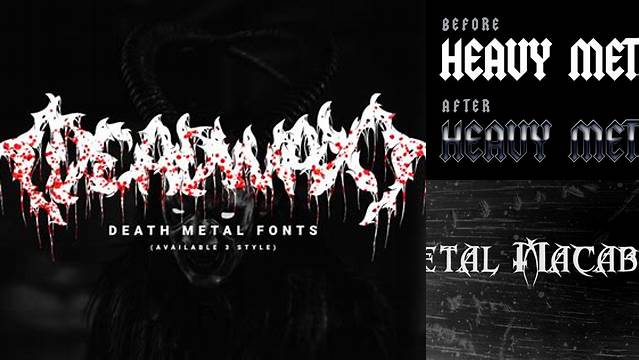
Free Heavy Metal Fonts For Commercial Use
Hey guys! Are you looking to add some serious metal vibes to your designs? You've come to the right place! Finding the perfect heavy metal font can be a game-changer for your projects, whether it's a band logo, album art, or even a killer poster. And the best part? There are tons of awesome options out there that you can use for free, even for commercial projects. Let's dive into the world of heavy metal fonts and explore how you can get your hands on the perfect one without breaking the bank. We'll cover everything from where to find them to how to use them effectively, ensuring your designs scream metal! So, grab your air guitar and let's get started on this headbanging adventure!
1. Understanding Heavy Metal Font Characteristics
Alright, before we jump into the font frenzy, let's talk about what makes a font truly heavy metal. These fonts are all about attitude, aggression, and a touch of the dark side. Think sharp edges, bold strokes, and sometimes even a hint of the gothic or medieval. A great heavy metal font needs to be instantly recognizable and pack a punch. Common characteristics include distorted letterforms, jagged lines, and a generally menacing appearance. Many draw inspiration from classic metal band logos, which often feature custom lettering that's as iconic as the music itself. Understanding these characteristics will help you narrow down your search and identify fonts that truly capture the heavy metal spirit. Whether you're designing a logo, a poster, or album artwork, choosing the right font is crucial to convey the desired mood and style. Let's make sure you know what to look for!
3. Key Features to Look for in a Heavy Metal Font
Now, let's get specific about what to look for in a heavy metal font. We're talking about features that make a font scream metal! Think about characteristics like bold weight, sharp serifs or lack thereof, and overall readability. A heavy metal font should be impactful and grab attention, but it also needs to be legible, especially if you're using it for body text. Consider the spacing between letters (kerning) and the height of the letters (x-height) as well. A good heavy metal font will balance the aggressive aesthetic with functional design. Look for fonts that offer variations in weight and style, such as bold, italic, and condensed versions, to give you more flexibility in your designs. Also, check if the font includes a full character set, including numerals and punctuation, to ensure it meets all your needs. Choosing the right features will elevate your designs and make them truly metal!
4. Distorted and Jagged Fonts for a Metal Look
One of the hallmarks of a heavy metal font is its often distorted and jagged appearance. This style perfectly captures the raw energy and rebellious spirit of the genre. Think about fonts that look like they've been through a sonic explosion β rough edges, uneven lines, and a generally chaotic vibe. These fonts are perfect for creating logos, album art, and posters that need to make a strong statement. When using distorted fonts, it's important to balance the visual intensity with readability. You want the font to be eye-catching, but not so chaotic that it's difficult to read. Consider using these fonts for headlines and titles, and pair them with a cleaner, more legible font for body text. Experiment with different distortions and jagged effects to find the perfect level of aggression for your design. Remember, a well-chosen distorted font can instantly transform your project into a heavy metal masterpiece!
5. Bold and Aggressive Font Styles
If you're aiming for a heavy metal vibe, bold and aggressive font styles are your best friends. These fonts command attention and exude power, making them perfect for designs that need to make a statement. Think thick strokes, strong serifs (or lack thereof), and an overall sense of intensity. A bold heavy metal font can instantly add a sense of drama and energy to your project, whether it's a band logo, a flyer for a gig, or album artwork. When choosing a bold font, consider how it will interact with other elements in your design. You want it to stand out, but not overpower the rest of the composition. Experiment with different weights and styles to find the perfect balance. Remember, a bold and aggressive font is a powerful tool for conveying the heavy metal aesthetic. Let's use that power wisely!
6. Gothic and Medieval Inspired Heavy Metal Fonts
Gothic and medieval influences are surprisingly common in heavy metal aesthetics, and this extends to fonts as well. These fonts often feature elaborate serifs, ornate details, and a generally dark and mysterious vibe. Think blackletter fonts, Fraktur styles, and other typefaces that evoke a sense of history and drama. A gothic or medieval-inspired heavy metal font can add a touch of epic grandeur to your designs, making them perfect for fantasy-themed projects, album art, or even band logos that want to convey a sense of ancient power. When using these fonts, it's important to consider readability. Some gothic fonts can be quite ornate, so use them sparingly and pair them with simpler fonts for body text. Experiment with different styles and weights to find the perfect balance between visual impact and legibility. Remember, a well-chosen gothic font can transport your audience to another world, adding a touch of timeless mystique to your heavy metal designs.
7. Fonts with Sharp Edges and Points
Sharp edges and points are a key element in many heavy metal fonts, adding a sense of danger and aggression. Think about letterforms that look like they could cut you β sharp serifs, pointed terminals, and an overall angular appearance. These fonts are perfect for designs that need to convey a sense of intensity and edge. They work especially well for logos, posters, and album art that want to make a bold statement. When using fonts with sharp edges, it's important to consider the overall balance of your design. You don't want the font to look too chaotic or overwhelming. Pair it with other elements that have a similar sharp aesthetic, or contrast it with smoother, more rounded shapes to create visual interest. Experiment with different weights and sizes to find the perfect balance between aggression and readability. Remember, a font with sharp edges can add a serious dose of heavy metal attitude to your project.
8. Slab Serif Fonts for a Heavy Look
Slab serif fonts, with their thick, blocky serifs, can be a fantastic choice for a heavy metal aesthetic. These fonts have a strong, commanding presence that exudes power and confidence. They're perfect for designs that need to make a statement, such as logos, posters, and album art. A slab serif heavy metal font can give your project a vintage, industrial, or even Western-inspired feel, depending on the specific typeface you choose. When using slab serifs, it's important to consider the overall balance of your design. These fonts can be quite bold, so you'll want to pair them with other elements that can hold their own. Experiment with different weights and sizes to find the perfect balance between impact and readability. Remember, a well-chosen slab serif font can add a serious dose of heavy metal grit to your project.
9. Fonts with a Distressed or Grunge Texture
For a truly raw and gritty heavy metal look, consider using fonts with a distressed or grunge texture. These fonts look like they've been through the wringer β faded ink, rough edges, and an overall worn appearance. They're perfect for designs that need to convey a sense of authenticity and rebellion. A distressed heavy metal font can add a touch of vintage charm to your project, making it look like it's been around the block a few times. When using distressed fonts, it's important to consider readability. The texture can sometimes make the letters difficult to decipher, so use these fonts sparingly and pair them with cleaner fonts for body text. Experiment with different levels of distress to find the perfect balance between texture and legibility. Remember, a well-chosen distressed font can add a serious dose of heavy metal attitude to your project.
10. Using Heavy Metal Fonts for Logos
Your logo is the face of your brand, and if your brand is heavy metal, you need a font that screams it! Using the right heavy metal font for your logo can instantly convey the attitude and energy of your music or brand. Think about fonts that are bold, aggressive, and instantly recognizable. Distorted fonts, sharp-edged fonts, and even gothic-inspired fonts can work wonders for a heavy metal logo. When designing a logo, it's important to consider the overall legibility of the font. Your logo needs to be readable at various sizes, from business cards to billboards. Experiment with different fonts and variations to find the perfect balance between style and readability. Also, think about the overall aesthetic of your brand. Does your music have a more raw and gritty sound, or is it more polished and epic? Choose a font that reflects your brand's unique personality. Remember, your logo is your first impression, so make it a heavy metal one!
11. Applying Heavy Metal Fonts to Album Artwork
Album artwork is a crucial part of the heavy metal experience. It's the visual representation of your music, and the font you choose plays a significant role in setting the mood. A killer heavy metal font can instantly grab the viewer's attention and make them want to listen. Think about fonts that are bold, dramatic, and visually striking. Distorted fonts, gothic fonts, and fonts with sharp edges are all great choices for album artwork. When designing album artwork, consider the overall theme and message of your music. Choose a font that complements the music and enhances the visual impact of the artwork. Experiment with different font sizes, colors, and effects to create a truly unique and memorable design. Remember, your album artwork is a visual extension of your music, so make it heavy metal to the core!
12. Creating Posters and Flyers with Metal Fonts
Posters and flyers are essential tools for promoting heavy metal gigs and events. And guess what? The right font can make all the difference! A heavy metal font that grabs attention and conveys the energy of the music is key. Think about fonts that are bold, aggressive, and easy to read from a distance. Distorted fonts, slab serif fonts, and fonts with sharp edges are all great choices for posters and flyers. When designing posters and flyers, consider the overall layout and composition. You want the font to be the focal point, but it also needs to work harmoniously with the other elements in your design. Experiment with different colors, sizes, and placements to create a visually striking and informative poster. Remember, your poster is your invitation to the party, so make it heavy metal and irresistible!
13. Combining Different Heavy Metal Fonts
Sometimes, one heavy metal font just isn't enough! Combining different fonts can create a dynamic and visually interesting design. However, it's important to do it carefully to avoid a cluttered or chaotic look. When combining fonts, choose fonts that complement each other but also have enough contrast to create visual hierarchy. For example, you might pair a bold, distorted font for the headline with a cleaner, more legible font for the body text. Or, you could combine a gothic font with a slab serif font to create a unique and striking contrast. Experiment with different font combinations and see what works best for your design. Don't be afraid to break the rules, but always prioritize readability and visual harmony. Remember, combining fonts is an art, and when done well, it can take your heavy metal designs to the next level!
14. Ensuring Legibility with Heavy Metal Fonts
Okay, guys, let's talk readability! While heavy metal fonts are all about attitude and aggression, it's crucial to ensure your designs are still legible. A font that's too distorted or ornate can be difficult to read, especially at smaller sizes. When choosing a heavy metal font, consider its overall legibility. Can you easily read the letters and words, even from a distance? If not, you might need to choose a different font or adjust the size and spacing. Pay attention to the kerning (the space between letters) and the x-height (the height of the lowercase letters). These factors can significantly impact readability. Also, consider the context in which the font will be used. A font that looks great on a poster might not work well on a business card. Remember, the goal is to grab attention and convey your message effectively, so prioritize legibility without sacrificing the heavy metal vibe!
15. Using Color to Enhance Heavy Metal Font Aesthetics
Color can be a powerful tool for enhancing the aesthetics of your heavy metal fonts. Think about colors that evoke a sense of darkness, intensity, and energy. Black, red, and silver are classic heavy metal colors, but don't be afraid to experiment with other options as well. A bold color palette can make your fonts pop and add to the overall visual impact of your design. When using color, consider the contrast between the font and the background. You want the font to stand out and be easily readable. Also, think about the overall mood and message you want to convey. Darker colors can create a sense of mystery and aggression, while brighter colors can add a touch of energy and excitement. Experiment with different color combinations and see what works best for your project. Remember, color is your friend, so use it to enhance the heavy metal vibe of your fonts!
16. Adding Effects and Styles to Metal Fonts
Want to take your heavy metal fonts to the next level? Consider adding effects and styles to make them even more visually striking. Think about techniques like outlining, shadowing, and embossing. These effects can add depth and dimension to your fonts, making them pop off the page. You can also experiment with textures and patterns to create a more distressed or grungy look. For example, you might add a texture that simulates rust or scratches to give your fonts a weathered appearance. When adding effects, it's important to be subtle and avoid overdoing it. You want the effects to enhance the font, not overwhelm it. Experiment with different effects and styles to find the perfect balance between visual impact and legibility. Remember, a little goes a long way, so use effects wisely to create heavy metal magic!
17. Licensing Considerations for Free Fonts
Okay, this is super important, guys! When you're using free fonts, especially for commercial projects, you need to pay close attention to licensing. Not all free fonts are created equal, and some may have restrictions on how you can use them. Before you use a heavy metal font in your project, make sure you understand the licensing terms. Look for fonts that are labeled as "free for commercial use." This means you can use the font in your projects without having to pay any royalties or fees. However, even with commercial-use fonts, there may be some restrictions. For example, some fonts may require you to give credit to the designer. Always read the licensing information carefully to avoid any legal issues. If you're unsure about the licensing terms, it's always best to err on the side of caution and choose a different font. Remember, it's better to be safe than sorry when it comes to font licensing!
18. Common Mistakes to Avoid with Metal Fonts
Alright, let's talk about some common pitfalls to avoid when using heavy metal fonts. One of the biggest mistakes is overusing them. A heavy metal font is a powerful tool, but it can quickly become overwhelming if used excessively. Use these fonts sparingly, and pair them with cleaner, more legible fonts for body text. Another mistake is choosing a font that's too distorted or ornate. While these fonts can look cool, they can also be difficult to read, especially at smaller sizes. Prioritize legibility and choose fonts that are both stylish and readable. Also, be mindful of color combinations. A bad color palette can ruin even the coolest heavy metal font. Choose colors that complement each other and create a visually appealing design. Finally, don't forget about licensing! Always check the licensing terms before using a font, especially for commercial projects. Avoiding these common mistakes will help you create stunning heavy metal designs that truly rock!
19. The Evolution of Heavy Metal Font Styles
It's pretty cool to see how heavy metal font styles have evolved over the years, right? From the early days of the genre to today, fonts have played a big role in shaping the visual identity of heavy metal. In the beginning, many bands used gothic and medieval-inspired fonts, drawing on the dark and epic themes of their music. As heavy metal evolved, fonts became more distorted, aggressive, and experimental. Think sharp edges, jagged lines, and a generally chaotic vibe. Today, there's a huge variety of heavy metal font styles to choose from, ranging from classic looks to modern interpretations. You can find fonts that are raw and gritty, fonts that are polished and epic, and everything in between. The evolution of heavy metal fonts reflects the evolution of the genre itself, constantly pushing boundaries and exploring new visual territories. It's a fascinating journey, and the future of heavy metal fonts looks bright!
20. Creating a Metal Band Logo with Free Fonts
So, you're starting a heavy metal band and need a killer logo? Awesome! Using free heavy metal fonts can be a great way to create a logo that captures the spirit of your music without breaking the bank. Think about fonts that are bold, aggressive, and instantly recognizable. Distorted fonts, sharp-edged fonts, and gothic-inspired fonts are all excellent choices for a heavy metal band logo. When designing your logo, consider the overall image and message you want to convey. Your logo should reflect your band's unique personality and style. Experiment with different fonts, sizes, and colors to find the perfect combination. Also, think about the overall shape and composition of your logo. You want it to be visually appealing and memorable. Remember, your logo is the face of your band, so make it heavy metal and unforgettable!
21. Designing Merchandise with Heavy Metal Fonts
Merchandise is a fantastic way for heavy metal bands to connect with their fans and generate revenue. And guess what? The right font can make your merch even more appealing! Using heavy metal fonts on t-shirts, posters, and other merchandise can instantly convey the attitude and energy of your music. Think about fonts that are bold, dramatic, and visually striking. Distorted fonts, gothic fonts, and fonts with sharp edges are all great choices for heavy metal merch. When designing merchandise, consider the overall layout and composition. You want the font to be the focal point, but it also needs to work harmoniously with other elements in your design. Experiment with different colors, sizes, and placements to create a visually appealing and desirable product. Remember, your merch is a walking advertisement for your band, so make it heavy metal and eye-catching!
22. Exploring Different Subgenres and Font Styles
Heavy metal is a diverse genre with many subgenres, each with its own unique sound and aesthetic. And guess what? Different subgenres often have their own preferred heavy metal font styles! For example, black metal bands often use gothic and blackletter fonts to convey a sense of darkness and mystique. Thrash metal bands might prefer fonts that are sharp, aggressive, and distorted. Power metal bands might opt for fonts that are epic, heroic, and even fantasy-inspired. Exploring different subgenres and their font preferences can help you find the perfect font for your project. Think about the specific subgenre you're working with and choose a font that reflects its unique style and attitude. Experiment with different options and see what works best for the overall message you want to convey. Remember, choosing the right font can help you capture the essence of a particular heavy metal subgenre!
23. The Psychology Behind Heavy Metal Fonts
Fonts can evoke emotions and associations, and heavy metal fonts are no exception. These fonts often convey feelings of aggression, intensity, and rebellion. Think about the visual impact of a distorted, sharp-edged font β it instantly grabs your attention and creates a sense of danger. Gothic-inspired heavy metal fonts can evoke feelings of mystery, darkness, and even ancient power. The psychology behind heavy metal fonts is all about creating a visual representation of the music's energy and attitude. When choosing a font, think about the emotions you want to evoke in your audience. Do you want them to feel energized and pumped up? Or do you want to create a sense of foreboding and darkness? The font you choose can play a significant role in shaping the viewer's emotional response. Remember, fonts have power, so use them wisely to create the desired heavy metal impact!
24. Heavy Metal Font Trends in Modern Design
The world of design is constantly evolving, and heavy metal fonts are no exception. While classic heavy metal font styles will always have their place, there are also some exciting new trends emerging. Modern heavy metal fonts often blend traditional elements with contemporary design sensibilities. Think clean lines, minimalist shapes, and subtle distortions. You might see fonts that combine the boldness of a slab serif with the sharpness of a pointed typeface. There's also a growing trend towards using more legible heavy metal fonts, balancing the aggressive aesthetic with readability. Keeping an eye on these trends can help you create designs that are both cutting-edge and true to the heavy metal spirit. Experiment with new styles and techniques, but always stay true to the core values of heavy metal β attitude, energy, and rebellion!
25. Resources for Learning More About Typography
Want to become a heavy metal font master? Learning more about typography is a great place to start! There are tons of resources available online and in print that can help you develop your font skills. Websites like Fontspace and DaFont not only offer free heavy metal fonts but also have articles and tutorials on typography basics. Books like "The Elements of Typographic Style" by Robert Bringhurst are considered essential reading for designers. Online courses on platforms like Skillshare and Coursera can provide in-depth training in typography and design principles. Also, don't be afraid to experiment and practice! The more you work with fonts, the better you'll become at choosing and using them effectively. Remember, typography is a crucial part of design, and mastering it will help you create heavy metal masterpieces!
26. The Future of Heavy Metal Typography
So, what does the future hold for heavy metal typography? It's an exciting question! As design technology continues to evolve, we can expect to see even more innovative and experimental heavy metal font styles emerge. Think about fonts that incorporate 3D elements, animated effects, and even interactive features. We might also see a resurgence of hand-drawn and custom lettering in the heavy metal world, as designers seek to create unique and personalized visual identities for bands and brands. One thing is certain β heavy metal typography will continue to be bold, aggressive, and visually striking. It's a genre that thrives on pushing boundaries, and the fonts we use will continue to reflect that spirit. The future of heavy metal typography is bright, and we can't wait to see what awesome designs emerge!
27. Finding Inspiration for Metal Font Design
Feeling stuck on where to start with your heavy metal font design? Don't worry, inspiration is everywhere! One of the best places to find inspiration is by looking at existing heavy metal logos, album artwork, and posters. Pay attention to the fonts they use, the colors they choose, and the overall visual style. Websites like Pinterest and Behance are great resources for browsing design examples. You can also find inspiration in other areas, such as gothic architecture, medieval art, and even nature. Think about the textures, shapes, and patterns that resonate with the heavy metal aesthetic. Don't be afraid to experiment and try new things. Sometimes, the most unexpected sources can spark the best ideas. Remember, inspiration is all around you, so keep your eyes open and let your creativity flow!
28. Optimizing Heavy Metal Fonts for Web Use
If you're using heavy metal fonts on a website, it's important to optimize them for web use. Large font files can slow down your website's loading time, which can negatively impact the user experience. One way to optimize fonts for the web is to use web font formats like WOFF and WOFF2. These formats are compressed and designed to load quickly in web browsers. You can also use services like Google Fonts or Adobe Fonts to host your fonts, which can improve performance and ensure compatibility across different browsers and devices. Another tip is to limit the number of font styles you use on your website. Too many different fonts can create a cluttered and overwhelming design. Choose a few key heavy metal fonts that align with your brand and stick to them. Remember, optimizing fonts for the web is crucial for creating a fast and user-friendly website, so take the time to do it right!
29. Using Heavy Metal Fonts in Video Editing
Adding the right text to your heavy metal videos can make a huge difference, and the font you choose is key! Heavy metal fonts can bring the same attitude and intensity from music and album art to your video projects. Whether it's a lyric video, a band promo, or even a fan-made tribute, the right font can amp up the visual impact. Think about fonts that are bold, edgy, and easy to read β even when the video is playing at full speed. Distorted fonts, sharp-edged fonts, and fonts with gothic vibes can all look amazing in video, but always consider how theyβll appear on different screens and resolutions. Experiment with text effects like outlines, shadows, and glows to make your heavy metal fonts pop. Just like with graphic design, balance is crucial, so pair a wilder font for titles with a simpler one for body text to keep your message clear. Remember, killer visuals go hand-in-hand with killer music, so choose your fonts wisely and let your videos rock!
30. Heavy Metal Font Generators and Tools
Looking for some quick and easy ways to create heavy metal typography? You're in luck! There are tons of online font generators and tools that can help you achieve the perfect metal look without needing advanced design skills. These tools often let you input your text and then choose from a variety of heavy metal font styles, effects, and customizations. Some generators even allow you to upload your own fonts and create unique text effects. While these generators are great for quick mockups and experimenting with different styles, keep in mind that they might not offer the same level of control and customization as professional design software. However, they can be a fantastic starting point for brainstorming ideas and finding inspiration. For more advanced projects, you might want to consider using design software like Adobe Photoshop or Illustrator, which offer a wider range of features and capabilities. Remember, font generators are a great tool in your heavy metal design arsenal, so explore your options and find what works best for you!